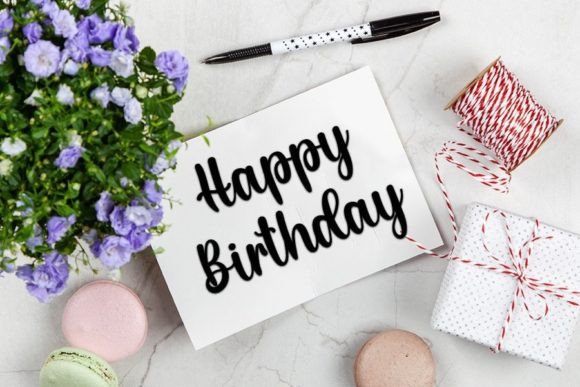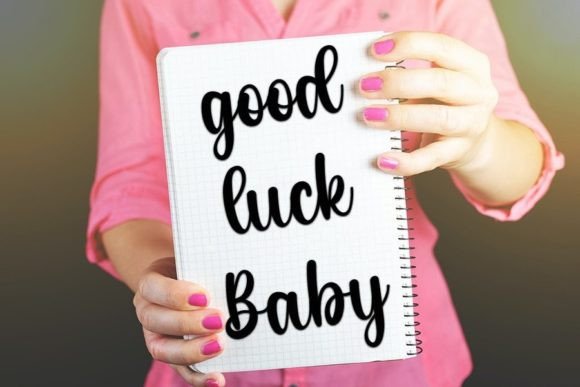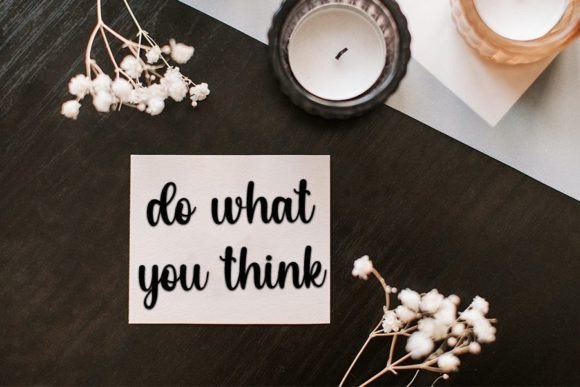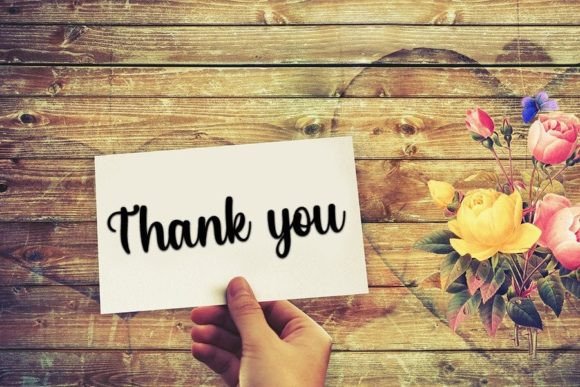
Introduction to Malica Font
Malica is a neat and beautiful handwritten font described by an elegant touch, perfect for your favorite projects.
Fall in love with its incredibly distinct and timeless style, and use it to create spectacular designs .
Key Features of Malica Font
Why Choose Malica Font?